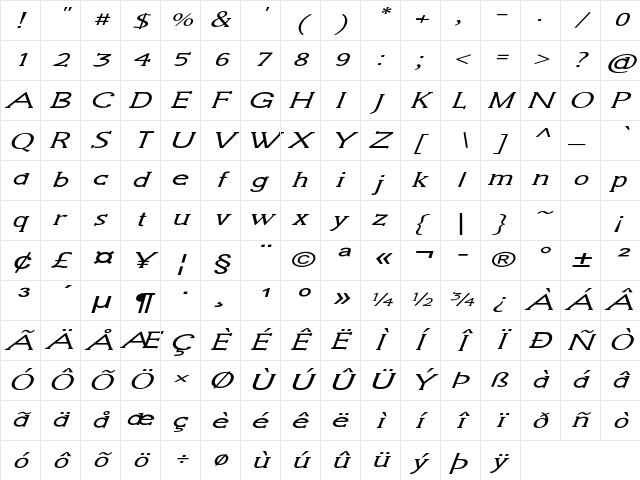
Complete Grackle Extra-expanded Italic glyph index. Displaying only characters natively supported by Grackle Extra-expanded Italic font.
Grackle is a composed and adaptable typeface that performs quietly and consistently across a wide range of design contexts. The slanted form adds forward momentum and visual energy.
Pro Tip: Use Grackle for emphasis, pull quotes, and subheadings where its slanted energy can add rhythm to the layout.